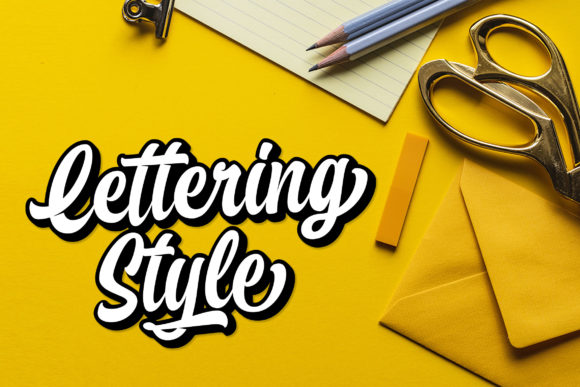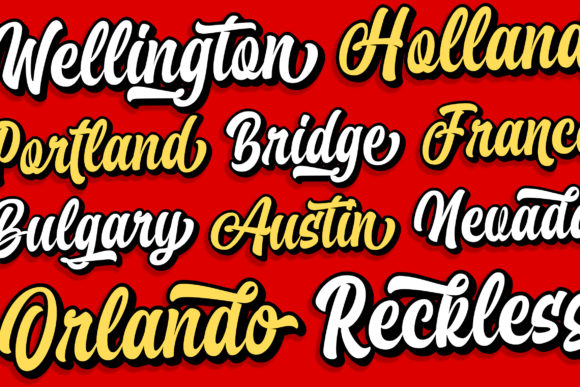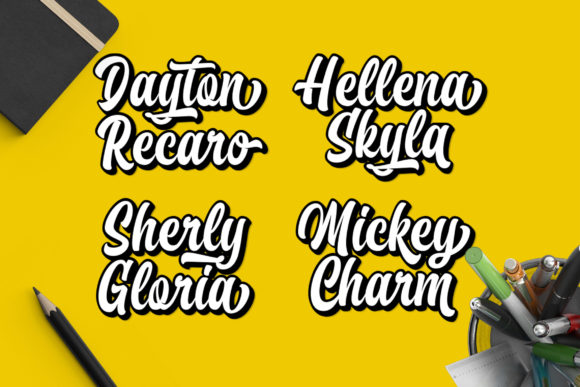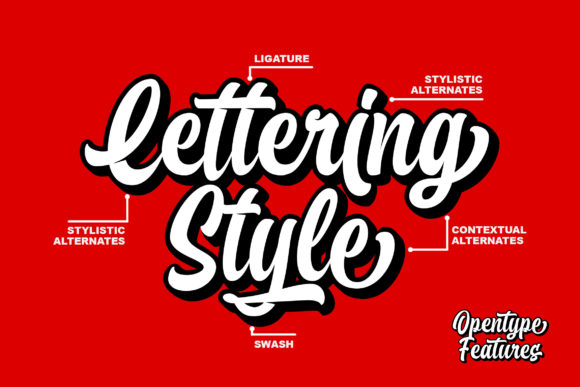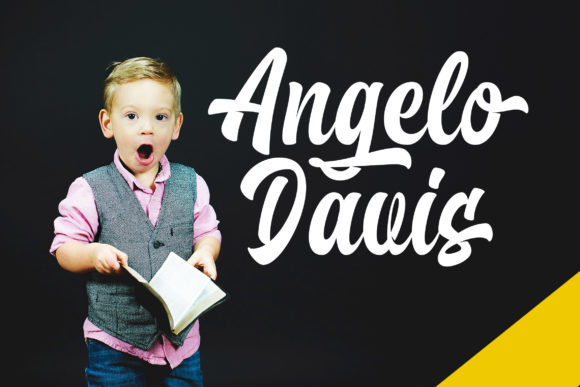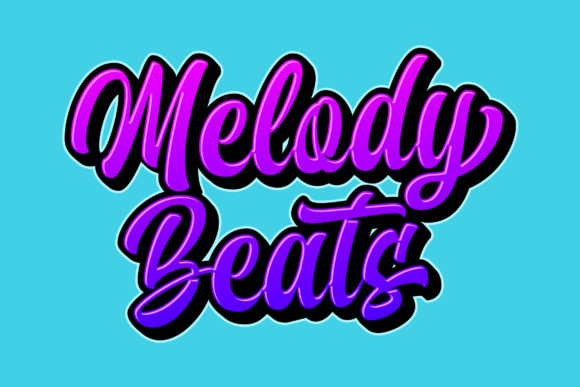
Brayles Font: The Ultimate Game-Changer for Designers and Crafters
Are you tired of using the same old fonts in your design projects? Look no further than Brayles Font, a fresh and exciting typeface that’s sure to take your creations to the next level. With its unique characters and playful vibe, Brayles is the perfect choice for designers and crafters looking to add a touch of personality to their work.
The Inspiration Behind Brayles Font
Brayles Font is more than just a collection of letters and numbers – it’s a statement. Its creators wanted to craft a font that would inspire creativity and bring a sense of fun to design projects. And they’ve succeeded. From the first glance, Brayles Font stands out from the crowd with its bold, eye-catching letters and charming quirks.
What Makes Brayles Font So Special?
So, what sets Brayles Font apart from other fonts out there? Here are just a few of its standout features:
- Unique Characters: Brayles Font boasts a range of unique characters that will add a touch of whimsy to any design project. From the elegant swashes to the playful ligatures, every letter has been carefully crafted to bring a sense of personality to your work.
- Highly Versatile: Whether you’re working on a logo, a poster, or a digital project, Brayles Font is the perfect choice. Its clean lines and simple shapes make it easy to read, while its decorative elements add a touch of flair.